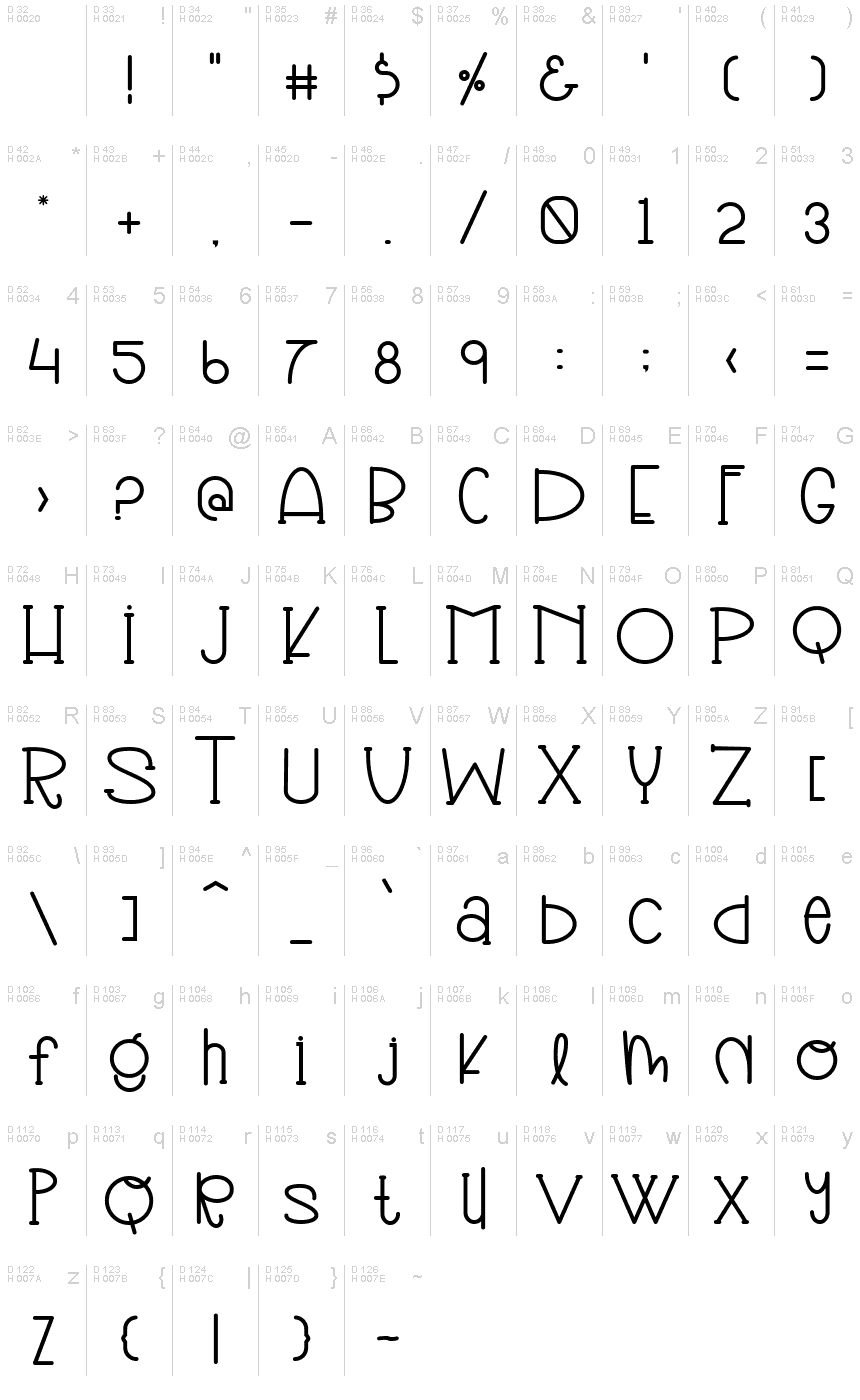
Humble Boy
Humble Boy, a creation of renowned font designer Andang Prasetyo, is a semi-light display font that exudes charm and personality. With its playful yet refined curves and unique letter shapes, Humble Boy strikes a balance between whimsical flair and understated elegance. The font’s aesthetic appeal is characterized by an air of casual sophistication that makes it perfectly suited for creative projects seeking to inject a sense of warmth and friendliness.
The semi-light weight of Humble Boy provides a delicate touch that enhances readability while ensuring the design remains impactful. From branding endeavors to editorial layouts, this font's versatility allows it to adapt seamlessly across various mediums. Whether gracing the cover of a novel, headlining a website banner or adding character to packaging design, Humble Boy is poised to add an inviting and distinctive voice to any visual composition.